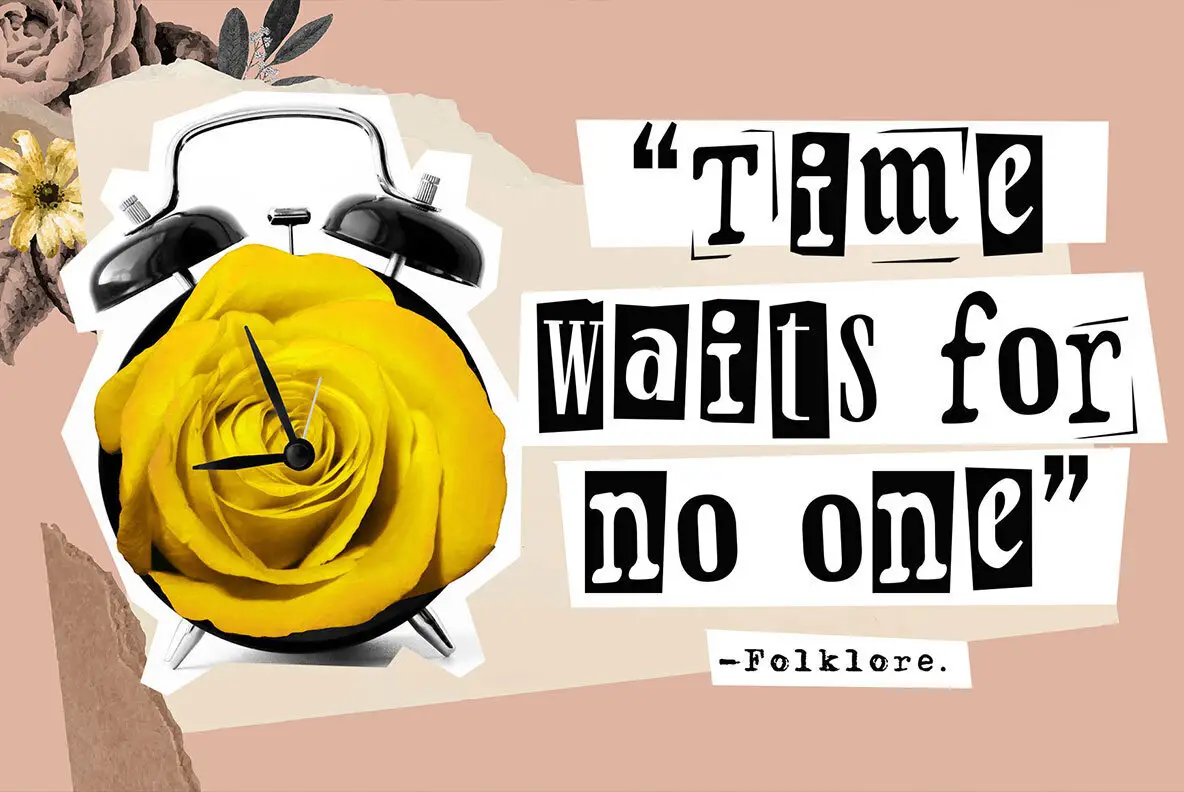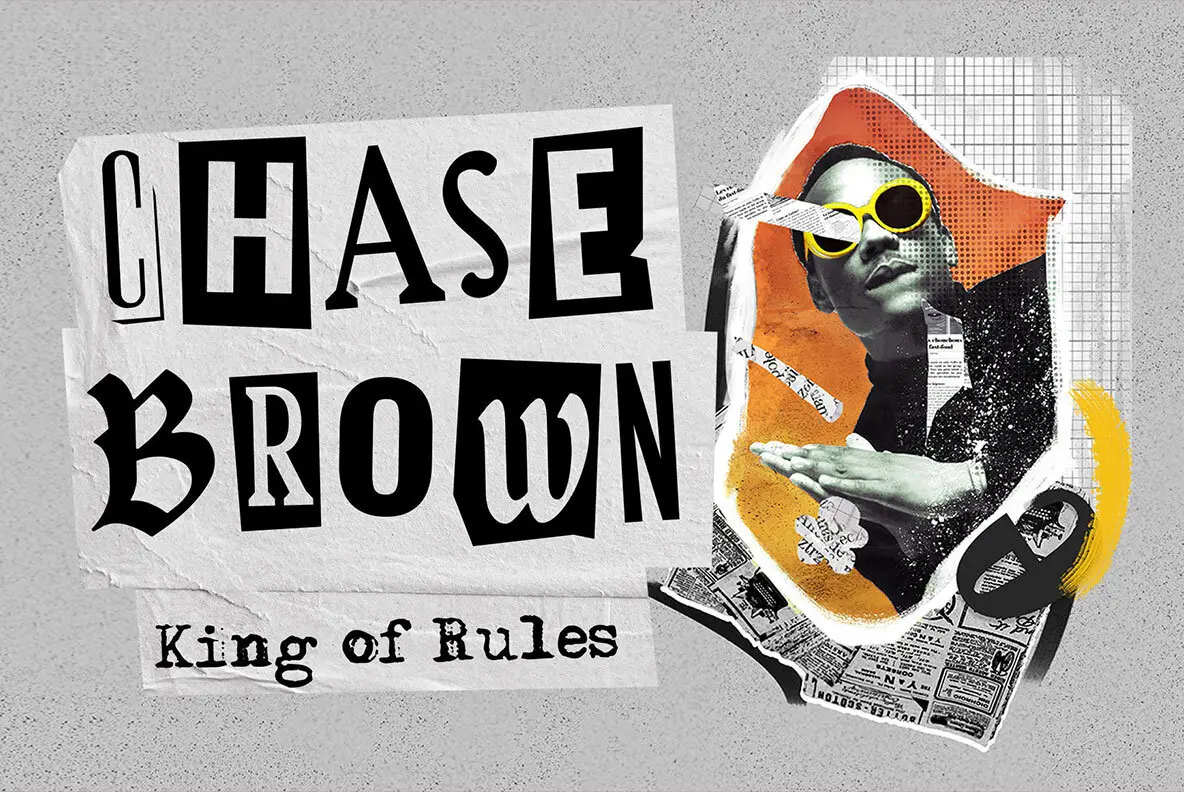
Retroma Vibes Font Fontpath This font is free for personal use only!. Retroma vibes a mixed font inspired by retro collage art and clipping of old newspapers. feel the old school taste with this block font mixed of sans serif, condensed serif, blackletter, handwriting, and old typewriter style, combined into a chaotic collage style.
Retroma Vibes Font Fontpath This font exudes a playful and eclectic vibe, reminiscent of retro styles with a modern twist. each character is uniquely designed, featuring a mix of bold and thin strokes, with some letters enclosed in irregular shapes that add a dynamic and quirky feel. Get the retroma vibes font free! a retro styled font perfect for logos, posters, and social media. download now and unleash your inner vintage artist!. Try something different, we proudly present our new exploration named "retroma vibes" a mixed font inspired by retro collage art and clipping of old newspapers. Download free retroma vibes font, view its character map and generate text based images or logos with retroma vibes font online.